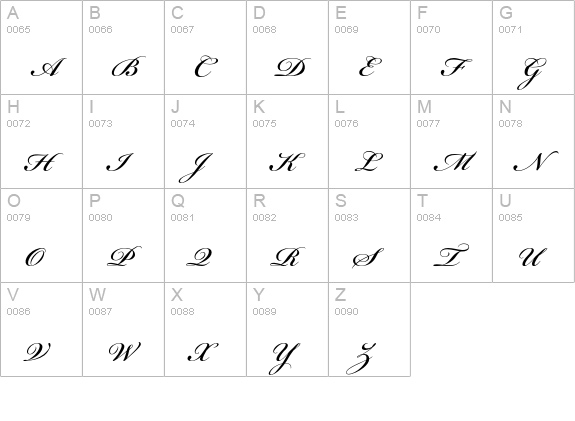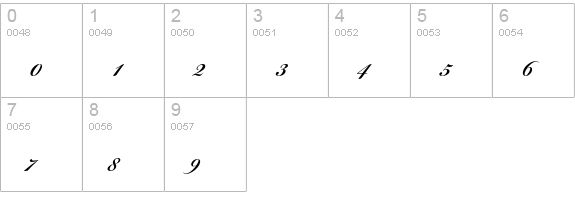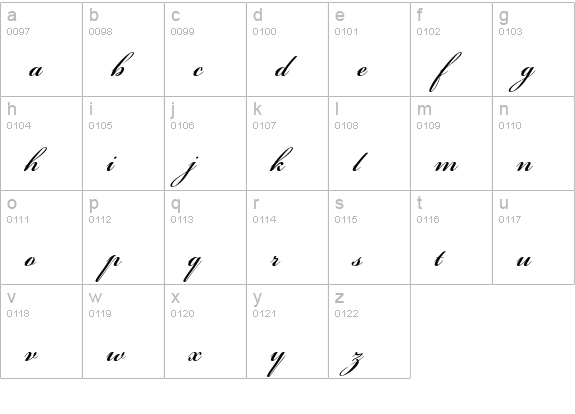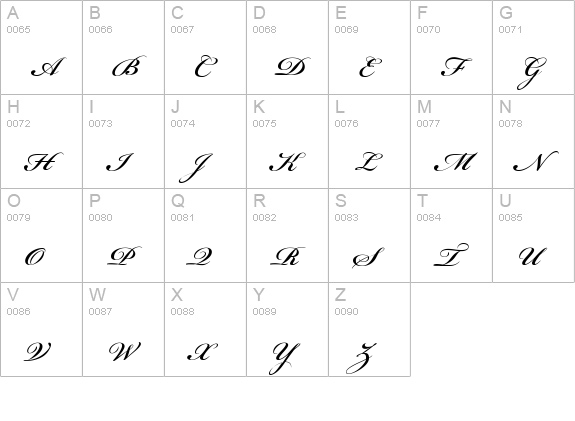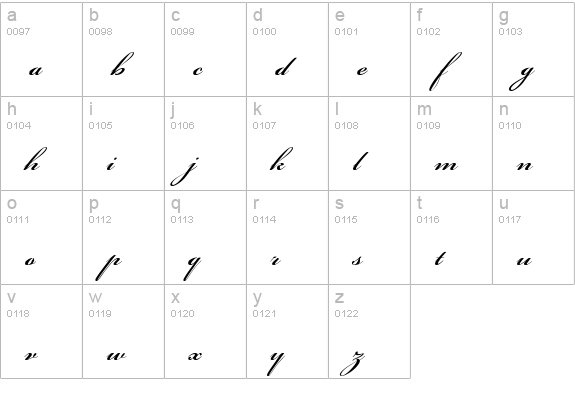
Bickham Script Std Semibold Font Details
Bickham Script Std Semibold is a sub-bold, structured variant in the Bickham typeface family \xE2\x80\x94 well suited to sub-headlines and emphasised passages.
Bickham Script Std Semibold font is a beautifully crafted typeface that exudes elegance and sophistication. With its delicate curves and graceful flourishes, this font is perfect for adding a touch of luxury to any design project. The semi-bold weight of the font gives it a strong presence while still maintaining a sense of refinement. What sets Bickham Script Std Semibold font apart is not only its stunning aesthetics but also its versatility. Whether you're designing wedding invitations, branding materials, or elegant packaging, this font will elevate your work to new heights. The best part? Bickham Script Std Semibold font is free to download at FontsMarket.com. So, go ahead and enhance your designs with this exquisite typeface today!